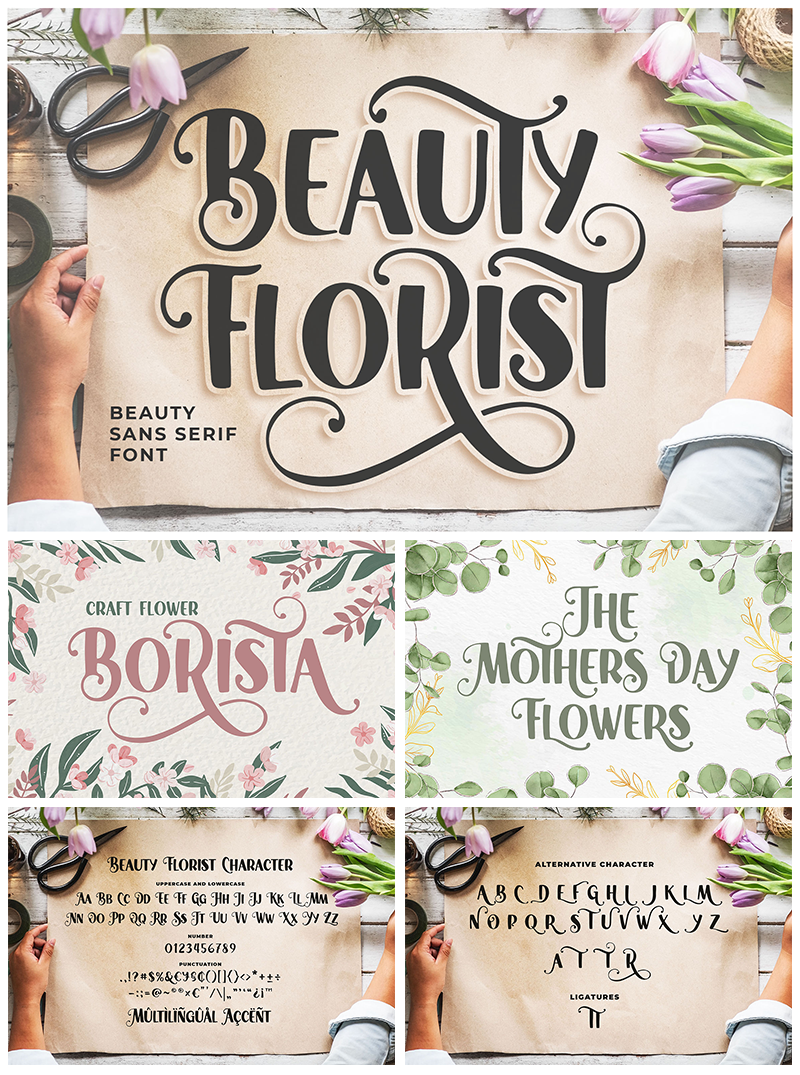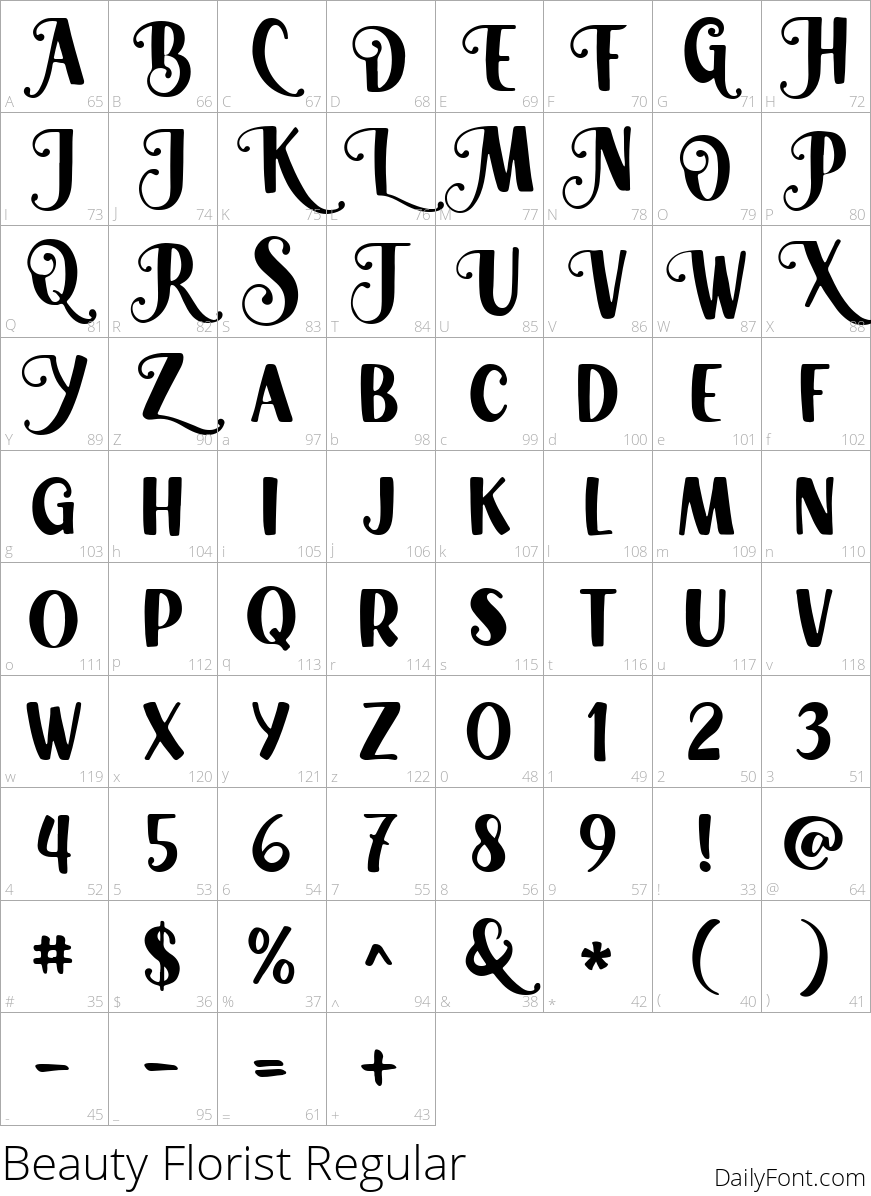
Beauty Florist
Beauty Florist is a joyful and elegant sans serif font that combines sophistication with playfulness. Its unique design features gentle curves and a clean structure, making it both distinct and highly versatile. Ideal for various applications, from branding and packaging to digital media, this font adds a touch of charm to any project. Whether you're designing a wedding invitation, creating eye-catching social media graphics, or crafting a modern website, Beauty Florist will enhance your text with its refreshing aesthetic.
With its legible characters and balanced proportions, Beauty Florist is designed for optimal readability, even in smaller sizes. This font effortlessly bridges the gap between contemporary style and classic elegance. Embrace the beauty of typography and let your creativity bloom with Beauty Florist. It's not just a font; it's a statement of style that resonates with audiences and elevates design.